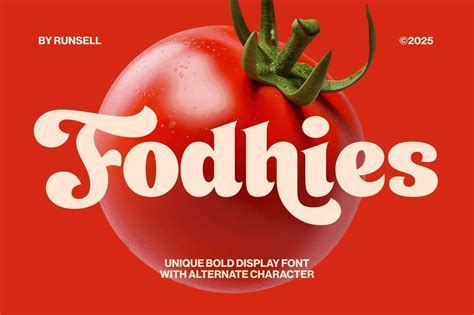
Designing a menu or a food blog that actually makes someone hungry is harder than it looks. I've spent hours tweaking typography, only to realize the chosen typeface felt too sterile for a rustic bakery or too messy for a modern bistro. When I finally compiled the Best 49+ Food Google Fonts Bundle Ttf for a client project, the entire design process shifted. Having a dedicated library of culinary-appropriate typefaces saves you from endless scrolling. Here's the thing: you don't just need pretty letters; you need fonts that communicate flavor.
Why Culinary Branding Demands Specialized Typography
Typography in the food industry is psychological. A thick, rounded sans-serif suggests comfort and fast service, while a delicate, high-contrast serif whispers fine dining. I’ve tested countless pairings, and the difference between a generic Arial menu and a thoughtfully typeset one is night and day in terms of customer perception. That said, grabbing random typefaces from the web often leads to kerning nightmares or missing glyph support. This is where a curated typography bundle becomes essential. It gives you pre-vetted options that actually look good on both print menus and digital storefronts.
Breaking Down the Best 49+ Food Google Fonts Bundle Ttf
Not every font in a massive collection works for every project. Honestly, I rarely use more than ten of them regularly. To help you narrow down your choices, I’ve categorized the most functional styles from this bundle based on how they perform in real-world menu design.
Font CategoryBest Used ForExample Vibe
Handwritten ScriptsCafé specials, dessert menusArtisanal, crafted by hand
Slab SerifsSteakhouses, BBQ jointsHearty, traditional, grounded
Geometric Sans-serifsModern bistros, vegan cafesClean, minimalist, fresh
• Test weights and kerning in a mock layout before committing.
Practical Applications of the Best 49+ Food Google Fonts Bundle Ttf
While sourcing a large bundle of free fonts is cost-effective, you have to be realistic about what you get. Free collections are fantastic, but they sometimes lack the extensive weight variations (light, bold, black) that premium foundries offer. This is where it gets interesting: you often have to rely on CSS letter-spacing adjustments to fake the weight you need. In my experience, this works fine for web headers but falls flat in large-format print. If a client needs a highly specific ultra-thin variant, I usually have to supplement the bundle with a paid typeface.
Finding the right typography for culinary design is about matching the texture of the food to the texture of the letters. A massive bundle of free fonts gives you the raw materials, but your eye is what makes the final dish work. Test them rigorously, respect their limitations, and don’t be afraid to mix a rustic script with a clean sans-serif to find your perfect flavor profile.